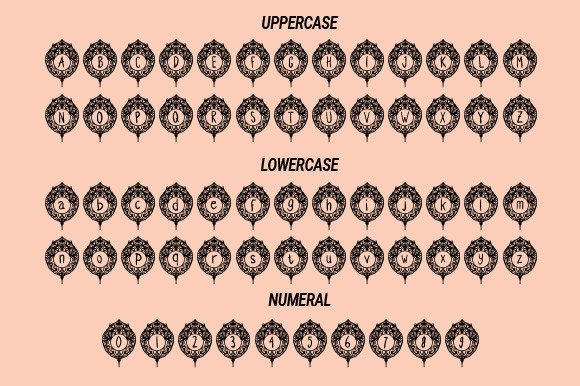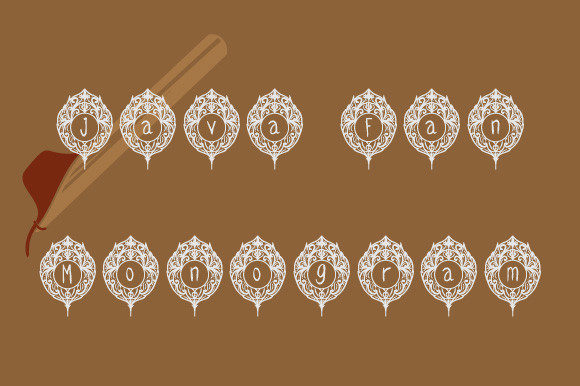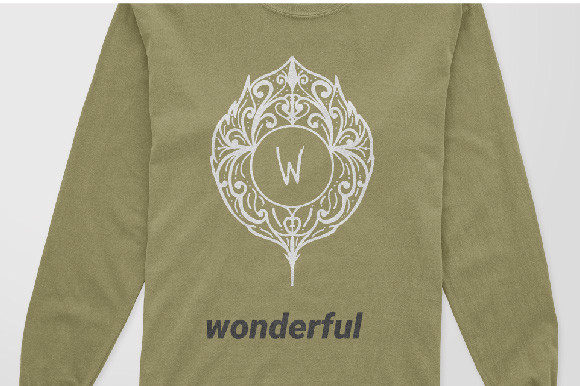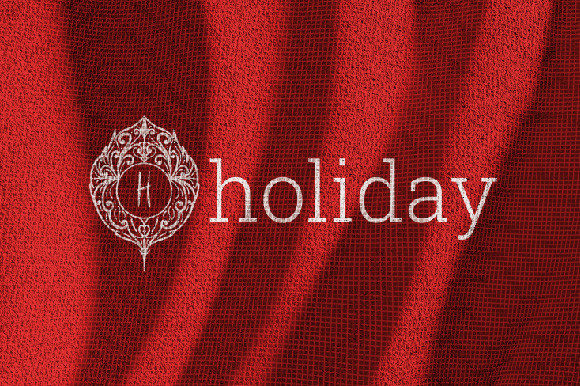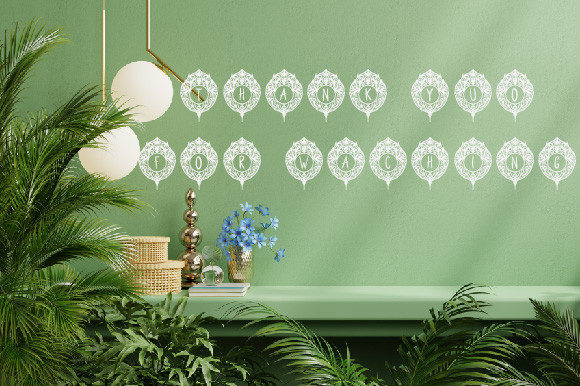
Unleashing the Beauty of Java Fan Monogram Font
Have you ever stumbled upon an old, intricately carved wooden fan and been mesmerized by its delicate patterns and calligraphy? That’s exactly the kind of creative moment that inspired the Java Fan Monogram Font. This unique writing style is a modern interpretation of traditional fan engraving, designed to add an extra touch of elegance to any design project.
Whether you’re looking to create a stunning logo, a beautiful invitation letter, or simply a special message, the Java Fan Monogram Font is the perfect choice. Its beautiful, flowing lines and intricate details make it a valuable asset for designers who want to add a touch of sophistication to their work.
With its versatility and timeless charm, the Java Fan Monogram Font is sure to become a favorite among designers and creatives alike.
Java Fan Monogram Font Key Features
- Unique Characteristics: The Java Fan Monogram Font features a unique, hand-drawn design with intricate details and curves, giving it a distinctive and elegant appearance.
Review of Java Fan Monogram Font
Overall, I found the Java Fan Monogram Font to be an interesting and unique option for designers. Here are some of the aspects that I appreciated:
- ✨ Customizability: The font offers a wide range of customization options, allowing designers to tailor the font to their specific needs.
- ✨ Versatility: The font can be used for a variety of purposes, from logos and branding to packaging and digital design.
- ✨ Unique style: The font’s unique style and flair make it stand out from more traditional fonts.
- ⚠️ Limited legibility: At smaller font sizes, the font can be difficult to read due to its intricate design.
Overall, I would say that the Java Fan Monogram Font is a great option for designers who want to add a touch of uniqueness to their projects. While it has some limitations, its customizability and versatility make it a valuable addition to any design toolkit.
The Java Fan Monogram Font is ideal for:
- Creating custom logos and branding materials.
- Designing invitations and event materials.
- Adding a personal touch to presentations and reports.
For optimal results, use the font in combination with bold and italic styles to create visual interest.